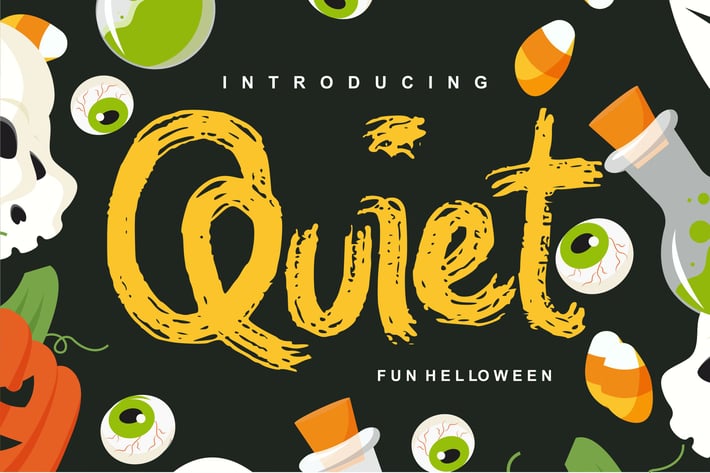
Quiet | Magical Helloween Font
Quiet | Magical Helloween Font with a Creepy style, So beautiful on invitation like greeting cards, branding materials, business cards, quotes, posters, and more!